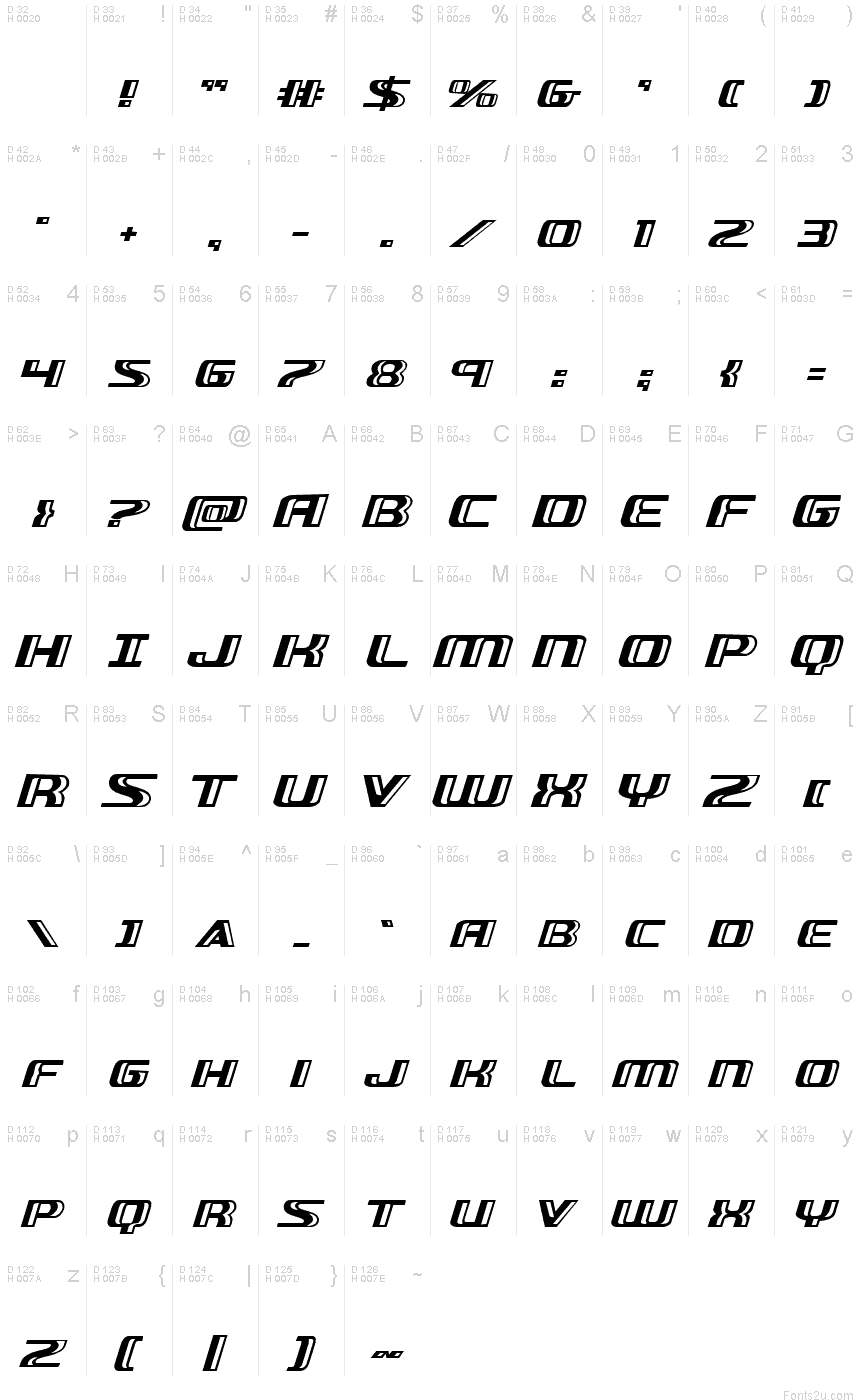
Grease Gun Expanded Italic from Iconian Fonts is a free groovy display font with a fast, machine-cut profile. Its extremely wide, sharply slanted letters mix sweeping outer curves with narrow internal cuts, giving the alphabet the look of custom automotive lettering.
Motorsport and retro-futurist themes make it especially suited to racing posters, vehicle graphics, and game title screens. In magazine design, it can turn a cover line into a speed-inspired graphic.
Grease Gun Expanded Italic